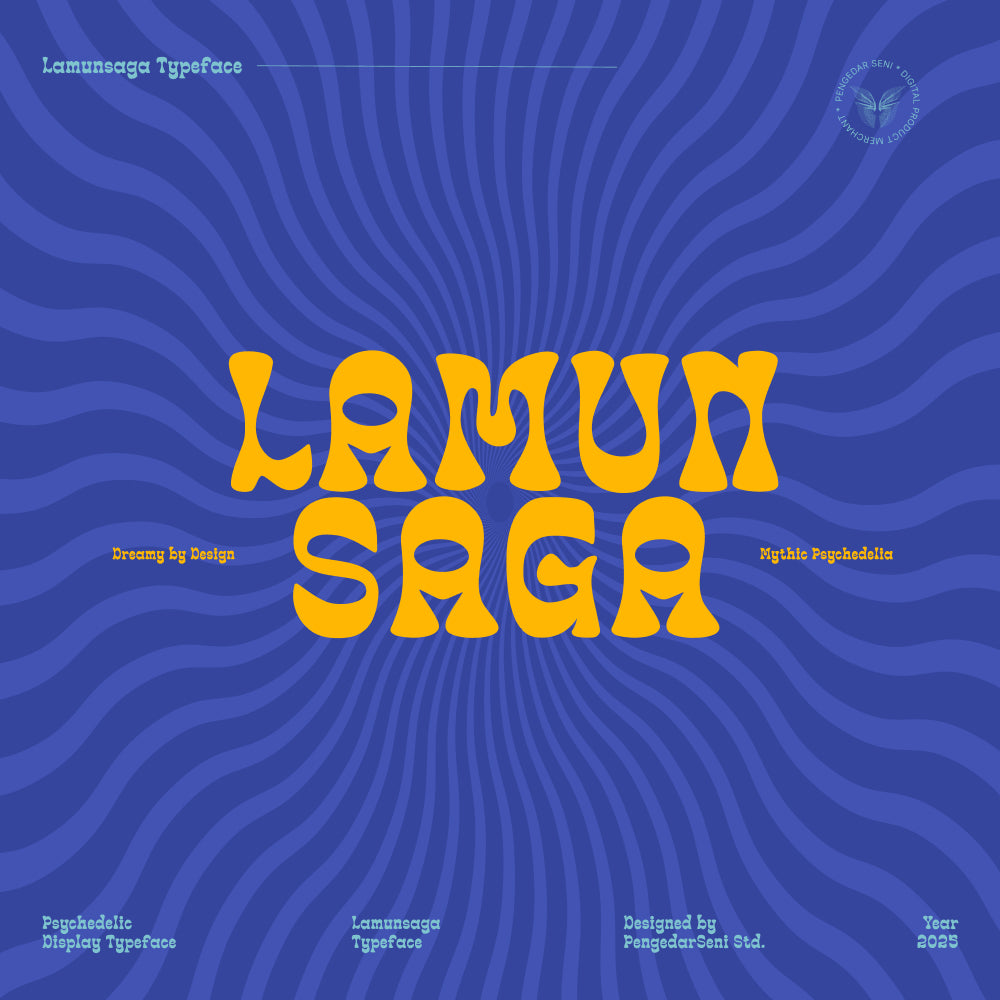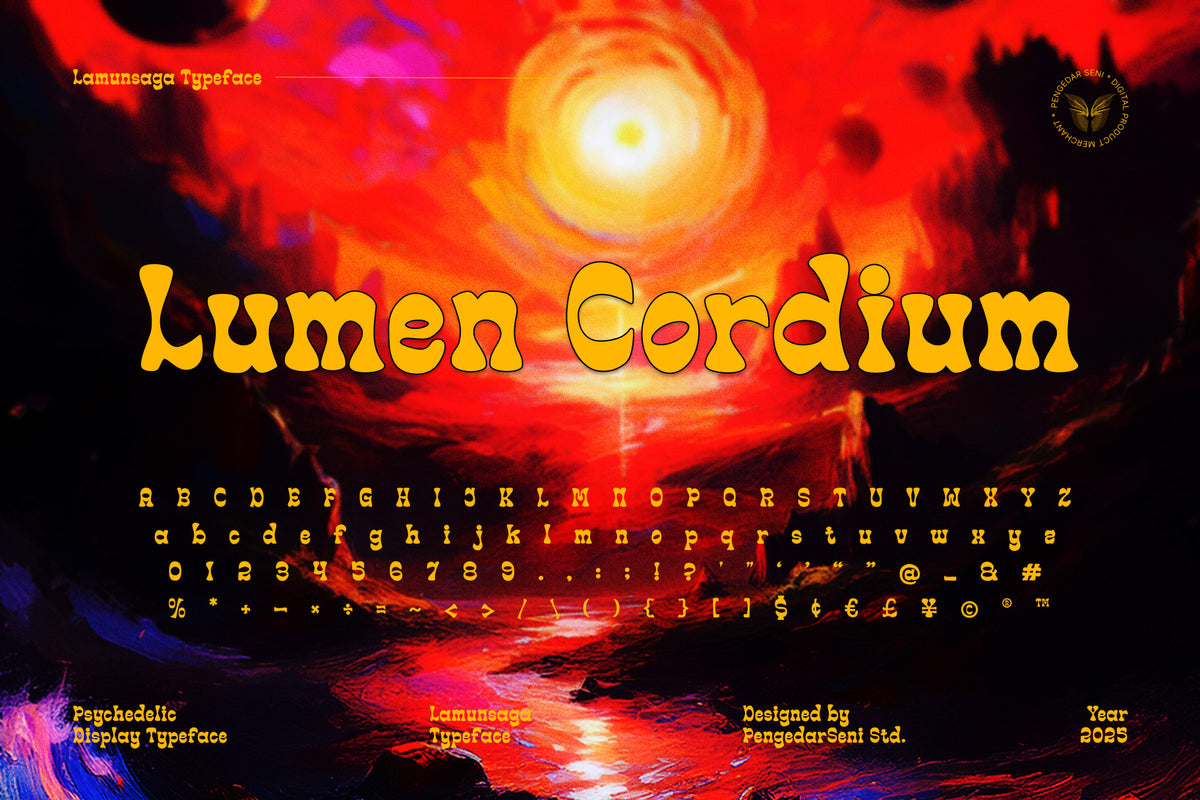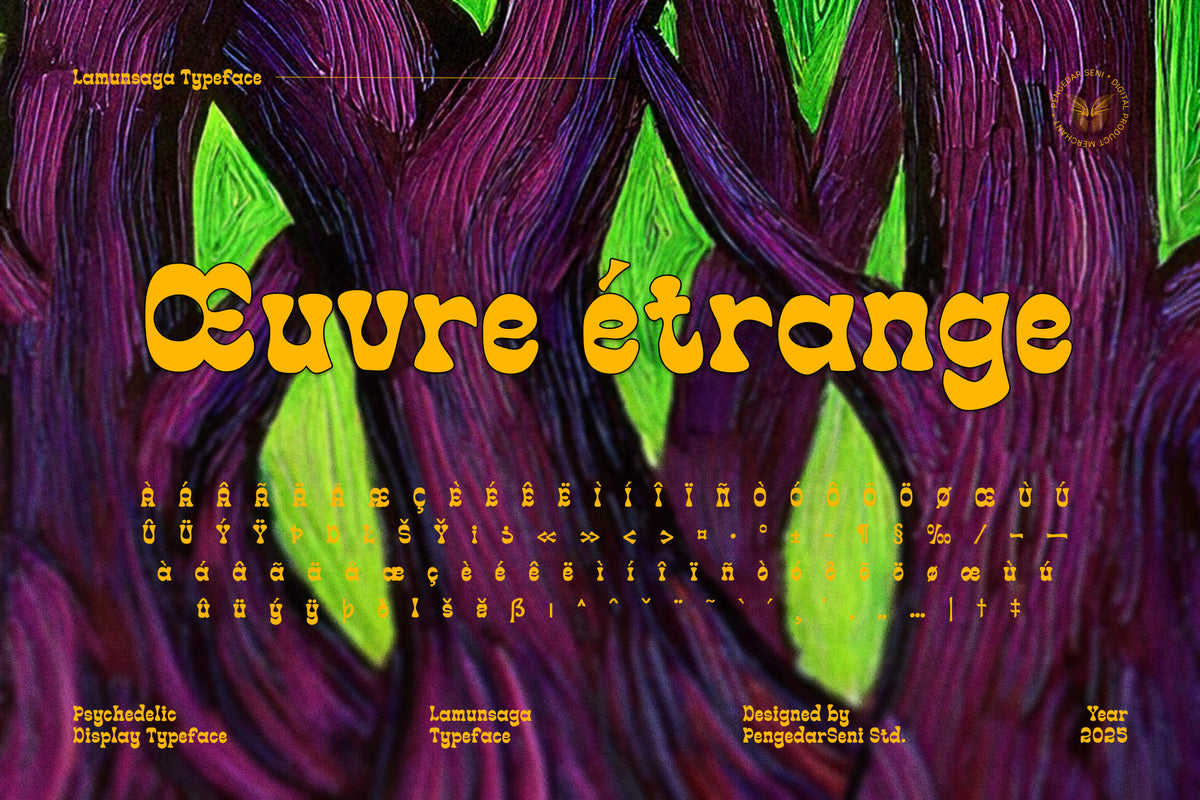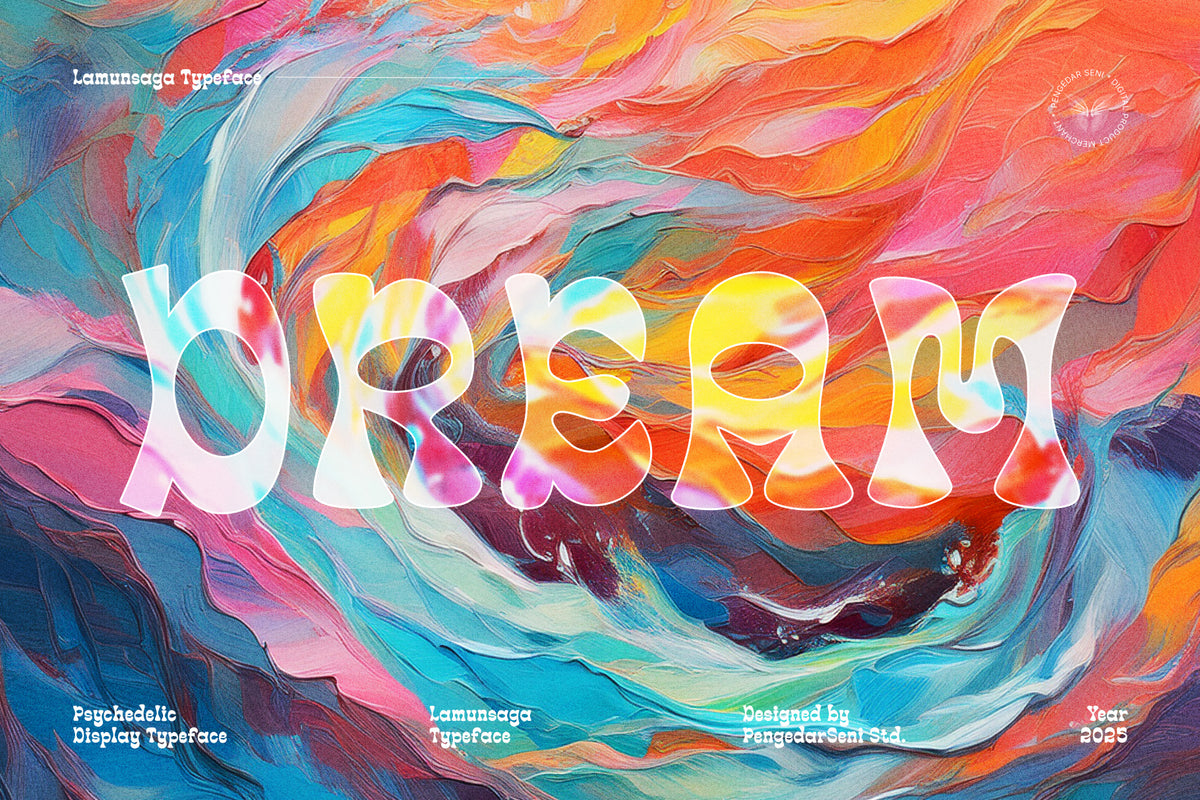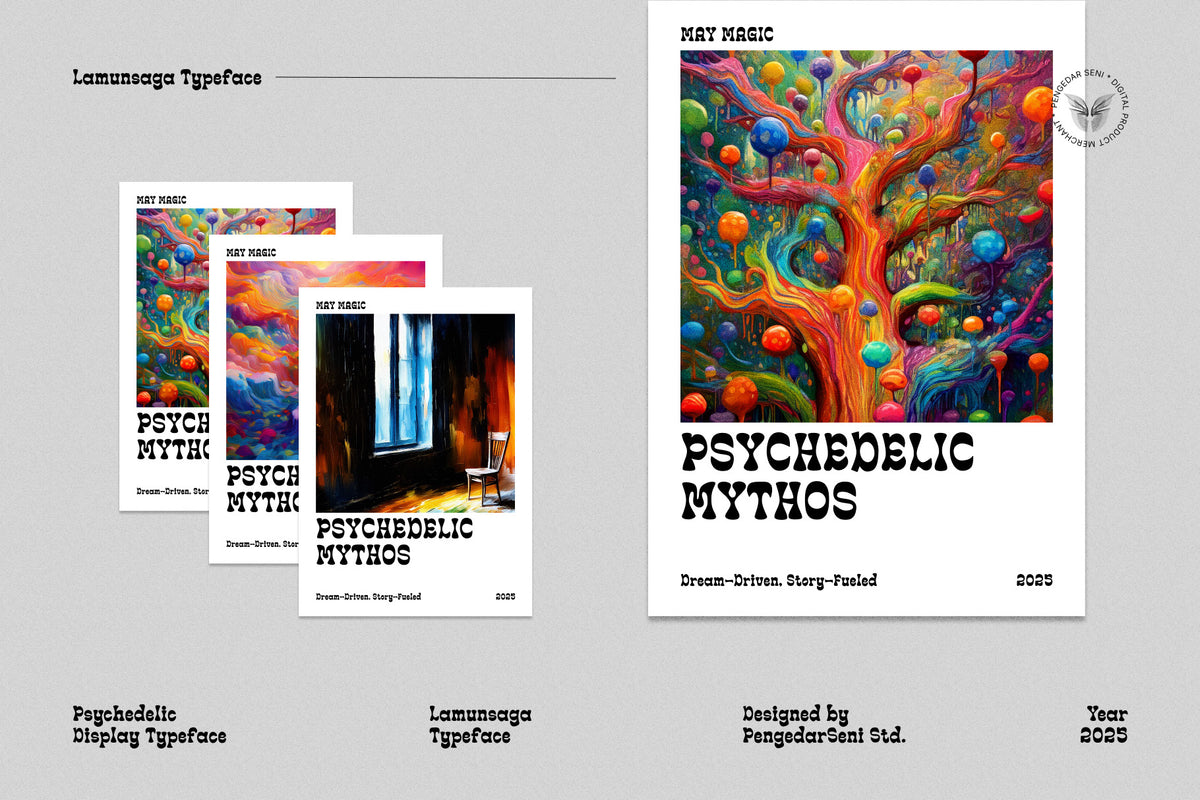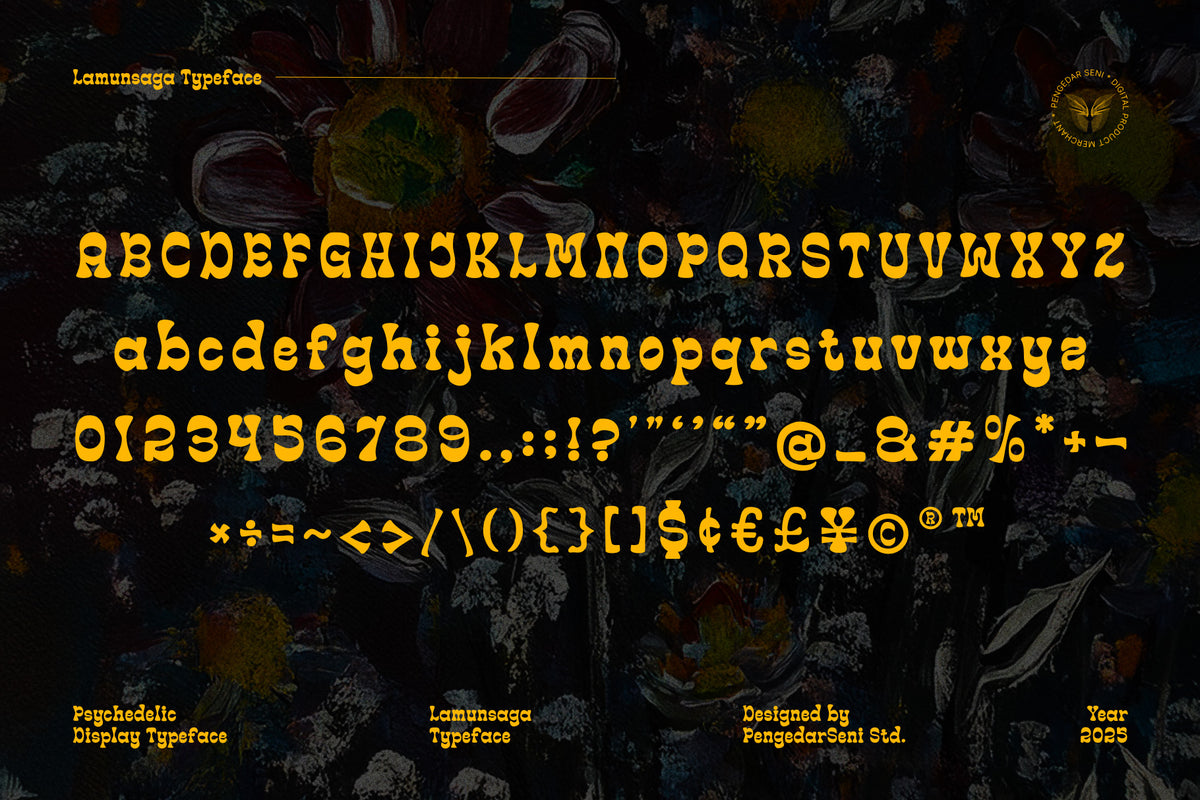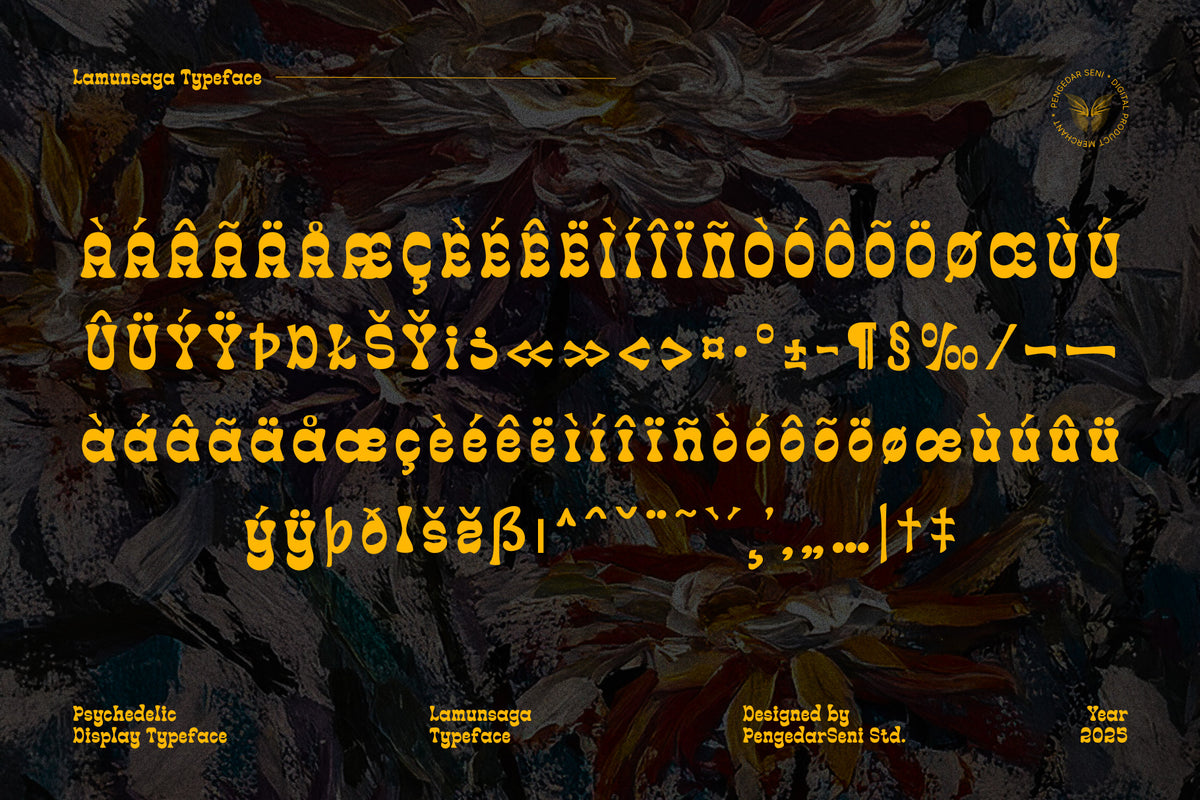
Lamunsaga – Psychedelic Typeface
LAMUNSAGA – Psychedelic Display Typeface
LAMUNSAGA is a psychedelic display typeface that stretches daydreams into epic visual narratives. A sequel to LAMUN, it blends the hypnotic allure of lamunan (daydream) with the grandeur of a saga. Derived from lamun (Indonesian for daydream, and Sundanese for “what if”), this typeface turns fleeting thoughts into timeless design myths.
With warped letterforms, poetic distortions, and dramatic presence, LAMUNSAGA transforms text into a hallucinatory voyage through nostalgia, fantasy, and rebellion. Perfect for concept album covers, immersive posters, fashion editorials, and esoteric zines, it gives typography a mythic depth.
Why Choose LAMUNSAGA?
Psychedelic Mythos: Bold, hypnotic, and visually striking for storytelling.
Epic Letter Shapes: Elongated, warped forms evoking surrealism and grandeur.
Statement Display: Ideal for covers, campaigns, packaging, and narrative visuals.
Cultural Roots: A unique concept blending imagination with global typographic appeal.
LAMUNSAGA isn’t just a font — it’s an odyssey. Let your words wander, stretch, and rise into epic dreams.
Lamunsaga is a psychedelic display typeface featuring elongated, warped letterforms with a retro-fantasy aesthetic. Inspired by the Indonesian/Sundanese term "lamun" (daydream), it is a sequel to the LAMUN typeface.